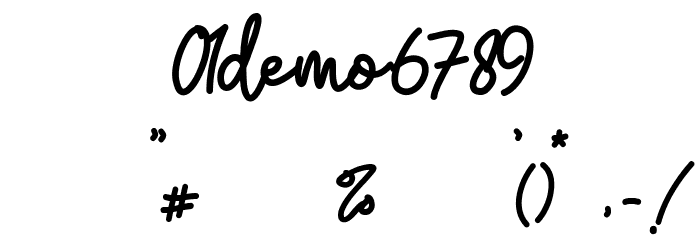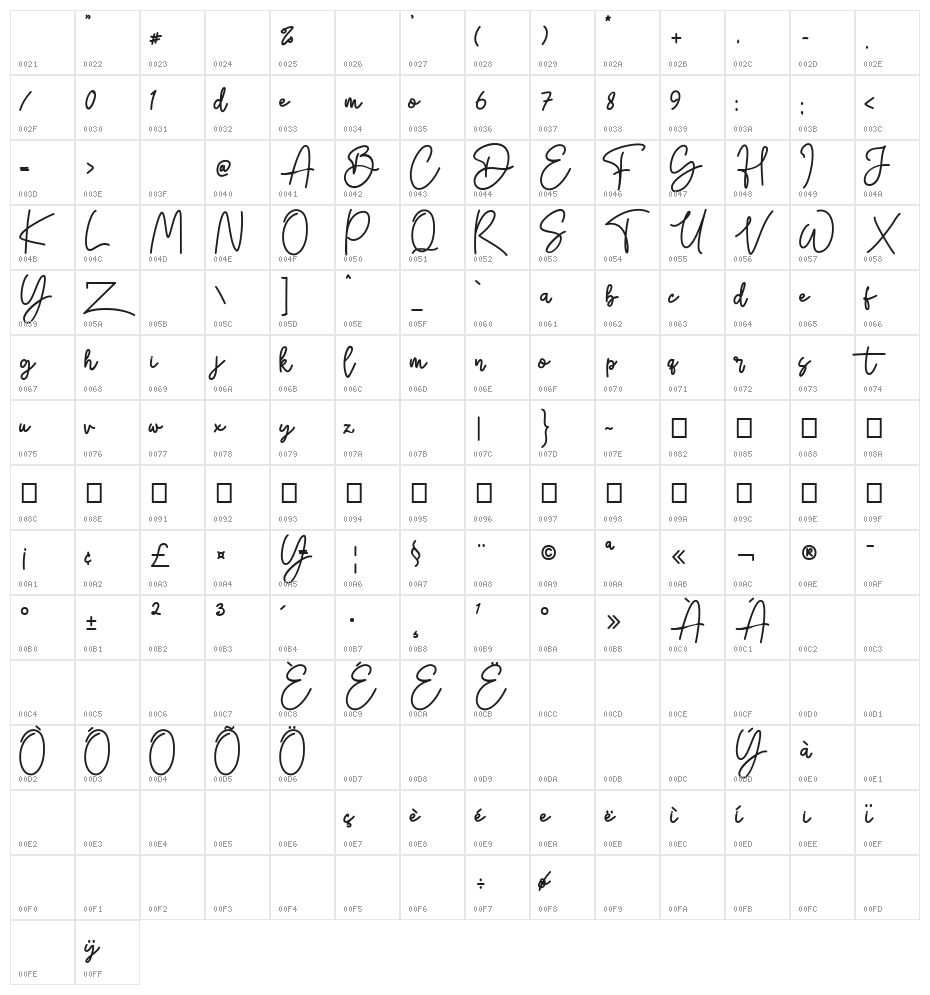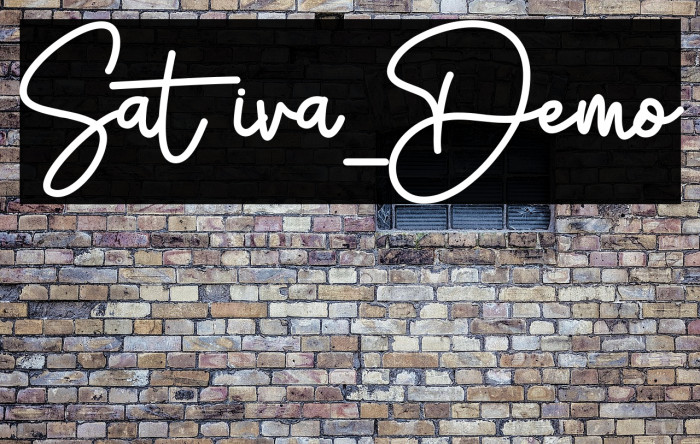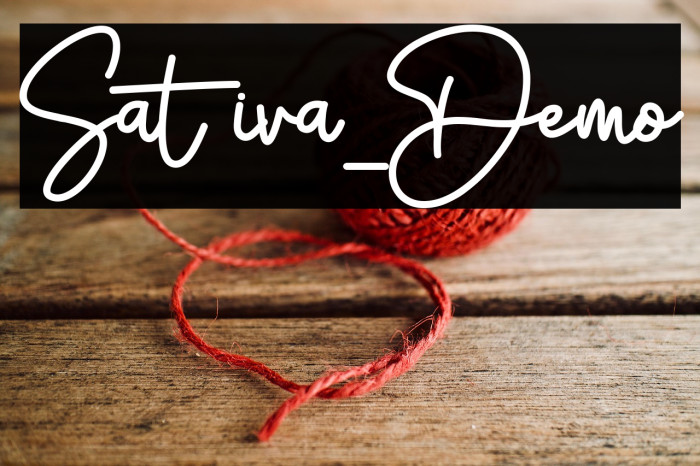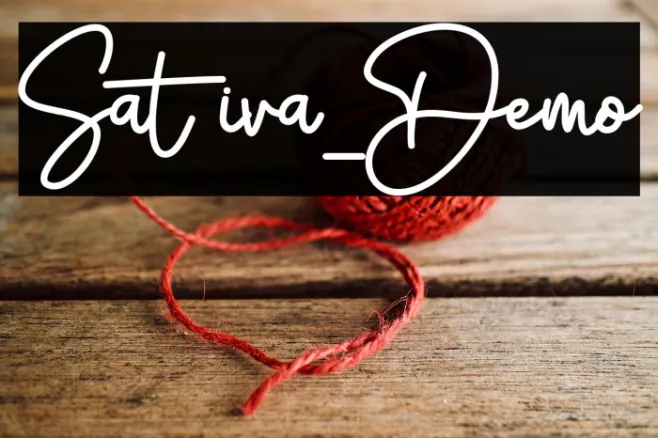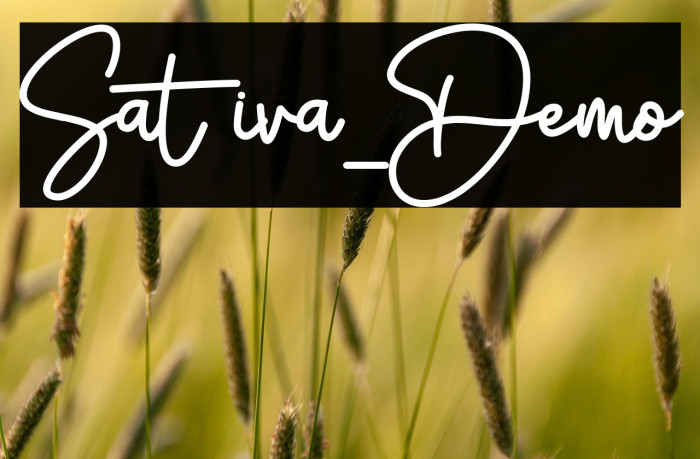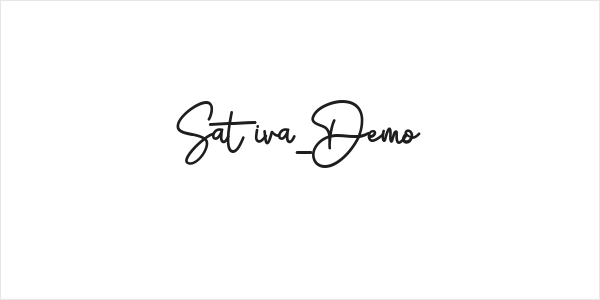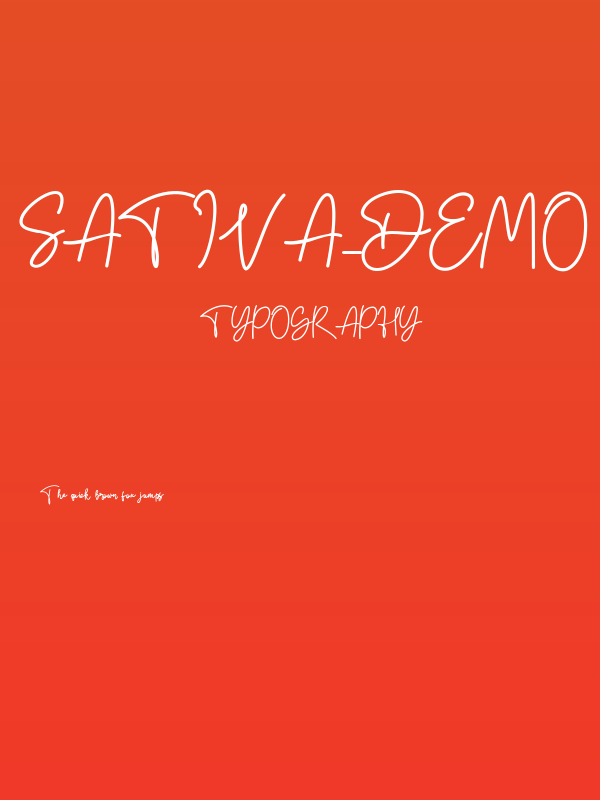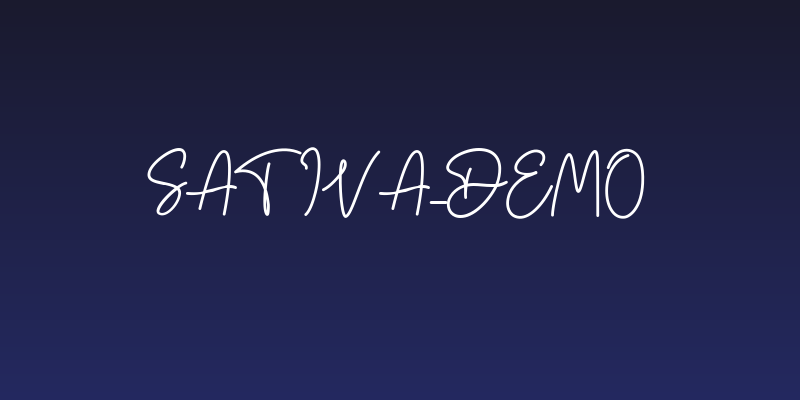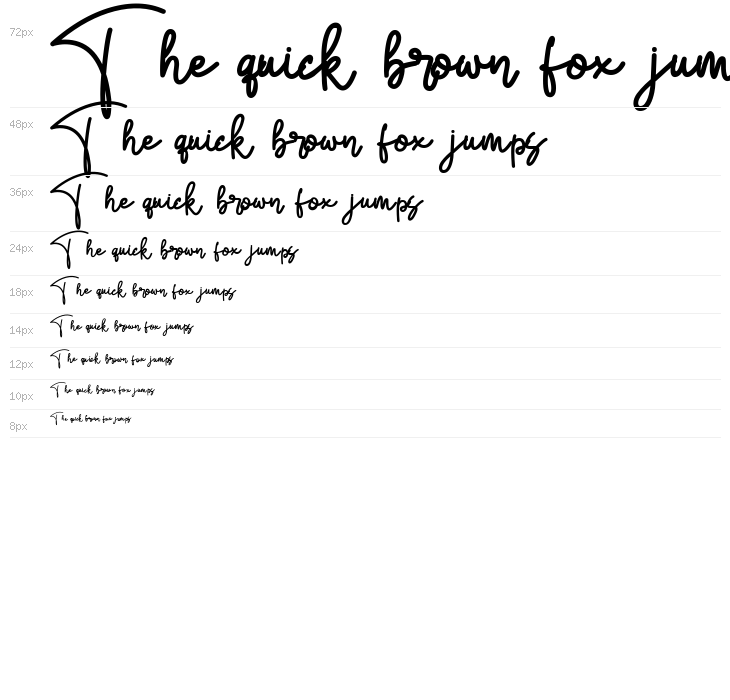
Sativa_Demo Font
Sativa_Demo Description
This font features a lively and expressive handwritten style, characterized by its fluid and dynamic strokes. The uppercase letters are tall and slender, with a slight slant that adds a sense of motion and elegance. The lowercase letters are more rounded and bold, providing a nice contrast to the uppercase. The numbers and special characters maintain the same playful and informal aesthetic, making the font versatile for various creative applications. The overall appearance is both modern and approachable, suitable for projects that require a personal touch.
| Proposed Projects | Ideal for greeting cards, invitations, personal branding, social media graphics, and creative posters. |